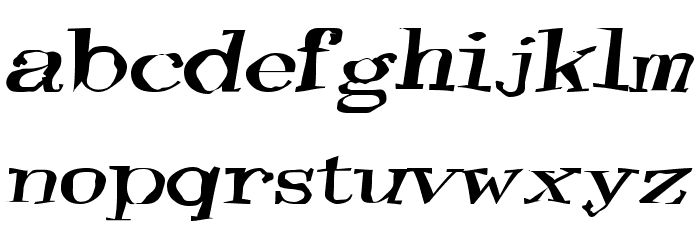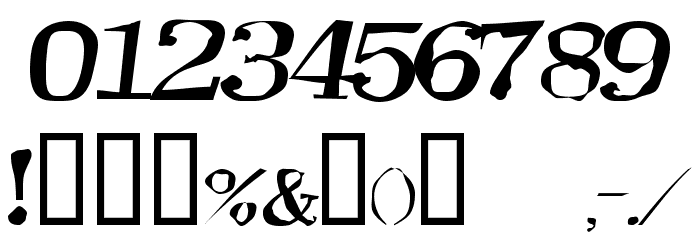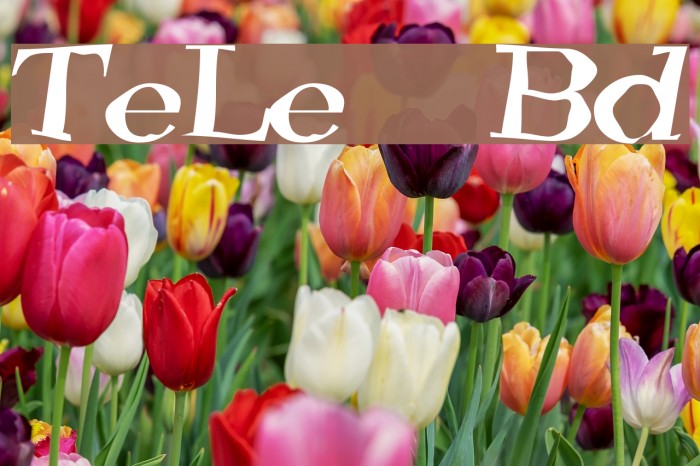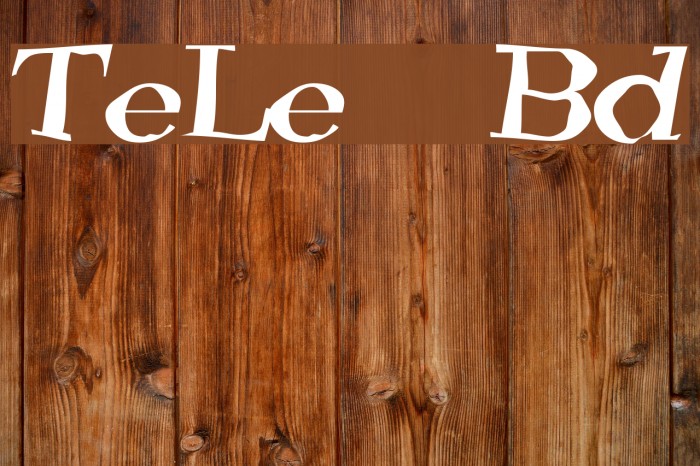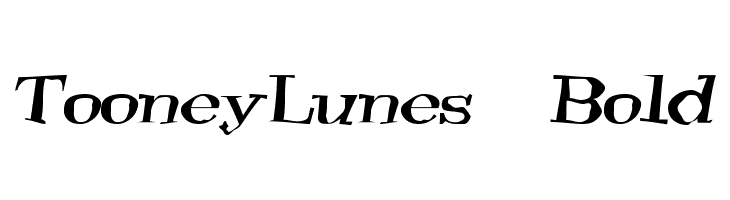
TooneyLunes Bold Font
This font exhibits a playful and dynamic style with a bold presence. The characters are slightly slanted, giving a sense of movement and energy. The strokes are thick and consistent, contributing to its bold appearance. The font features a unique, whimsical design with exaggerated serifs and curves, making it stand out as a decorative choice. The uppercase and lowercase letters maintain a cohesive look, while the numerals and special characters follow the same stylistic approach. This font is ideal for projects that require a fun and engaging visual impact.
A bold, playful font with dynamic slanted characters and exaggerated serifs.
- Proposed Projects: Ideal for children's books, playful branding, posters, and creative headlines.
- Overall Style: Playful, Whimsical